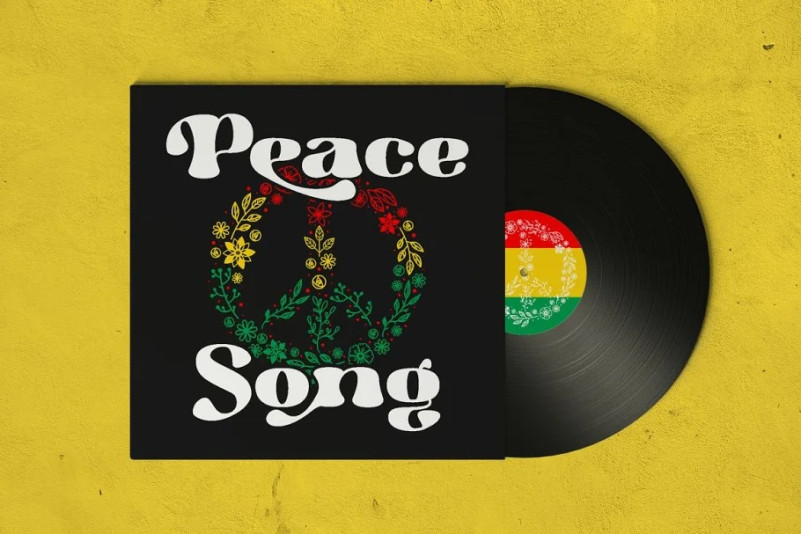
Hippie Vintage Display Font is a bold retro font with a lot of alternate glyphs. This font is perfectly match for groovy retro and vintage design. Hippie Vintage is a vintage serif font with beautiful ligatures, tons of alternative glyphs and multilingual support. Helps to create layout design in 60s or 70s design projects. Come with open type feature with a lot of alternates, its help you to make great lettering. Hippie Vintage best uses for heading headlines, cover, poster, logos, quotes, product packaging, merchandise, social media & greeting cards and many more.